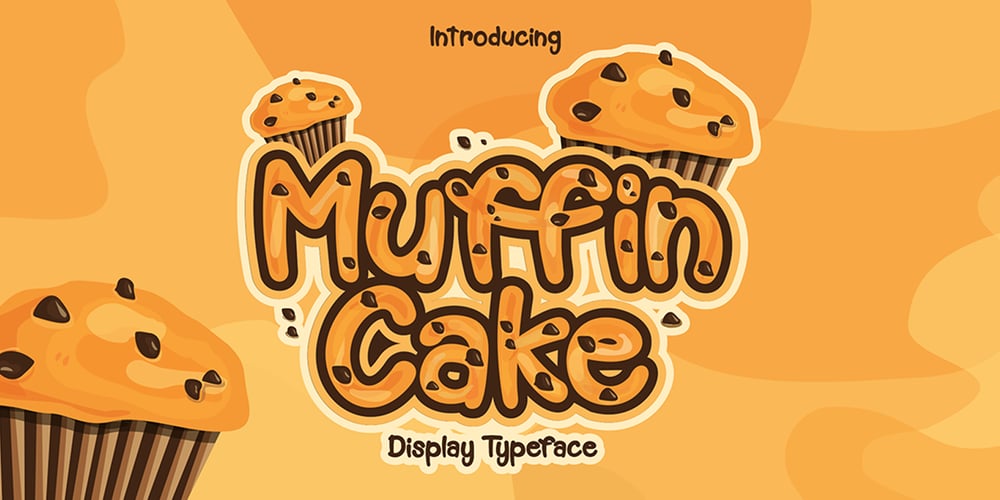
Muffin Cake Font Family was designed by Raditya Putra Pratama and published by Raditya Type. Muffin Cake contains 1 styles and family package options. Muffin Cake is a suitable font when used for logos and product names. Especially products related to the world of children who are fun and cheerful. Such as food products, toys, or institutions related to the world of children, such as children’s school names, the world of parenting. This font is also suitable for brand playgrounds.